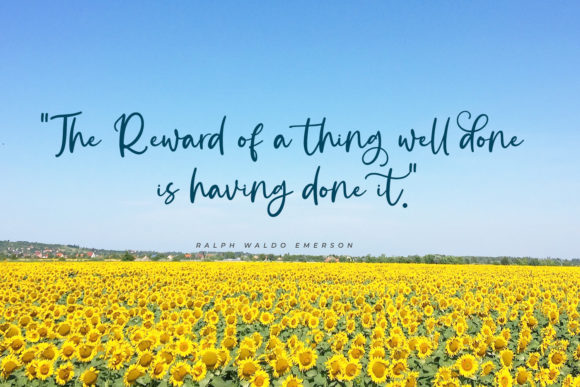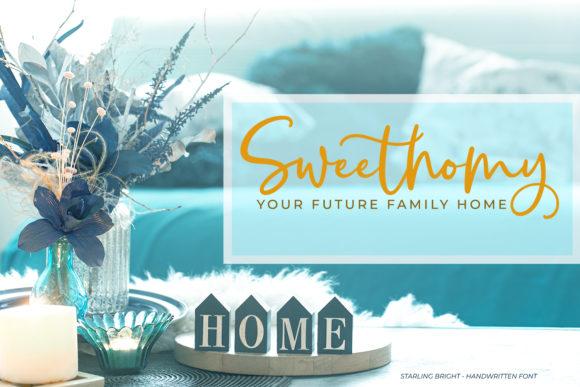
About Starling Bright Font
Starling Bright is a elegant handwritten font with a natural look. Get inspired by its authentic feel and use it to create gorgeous wedding invitations, beautiful stationary art, eye-catching social media posts, and cute greeting cards.